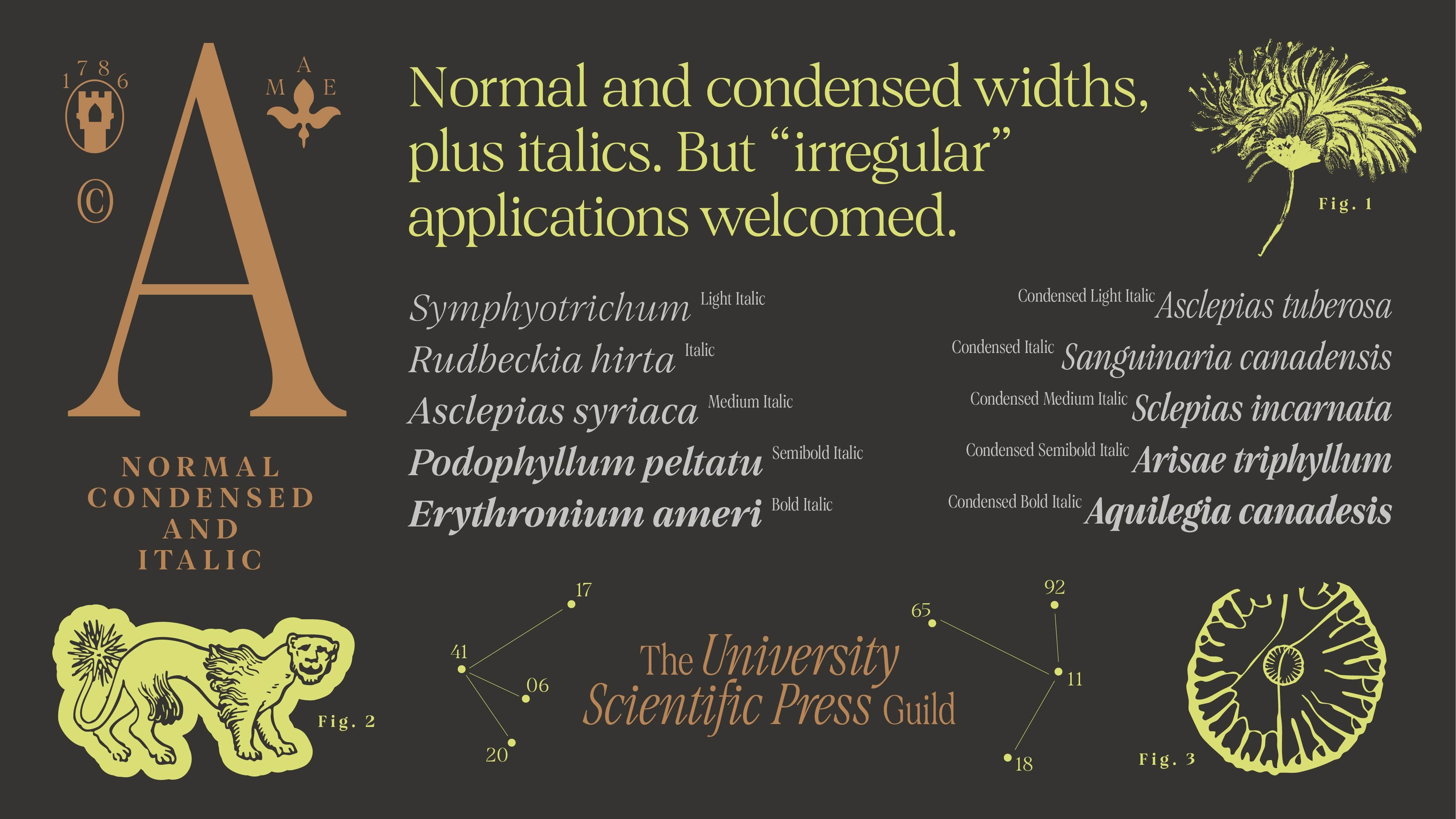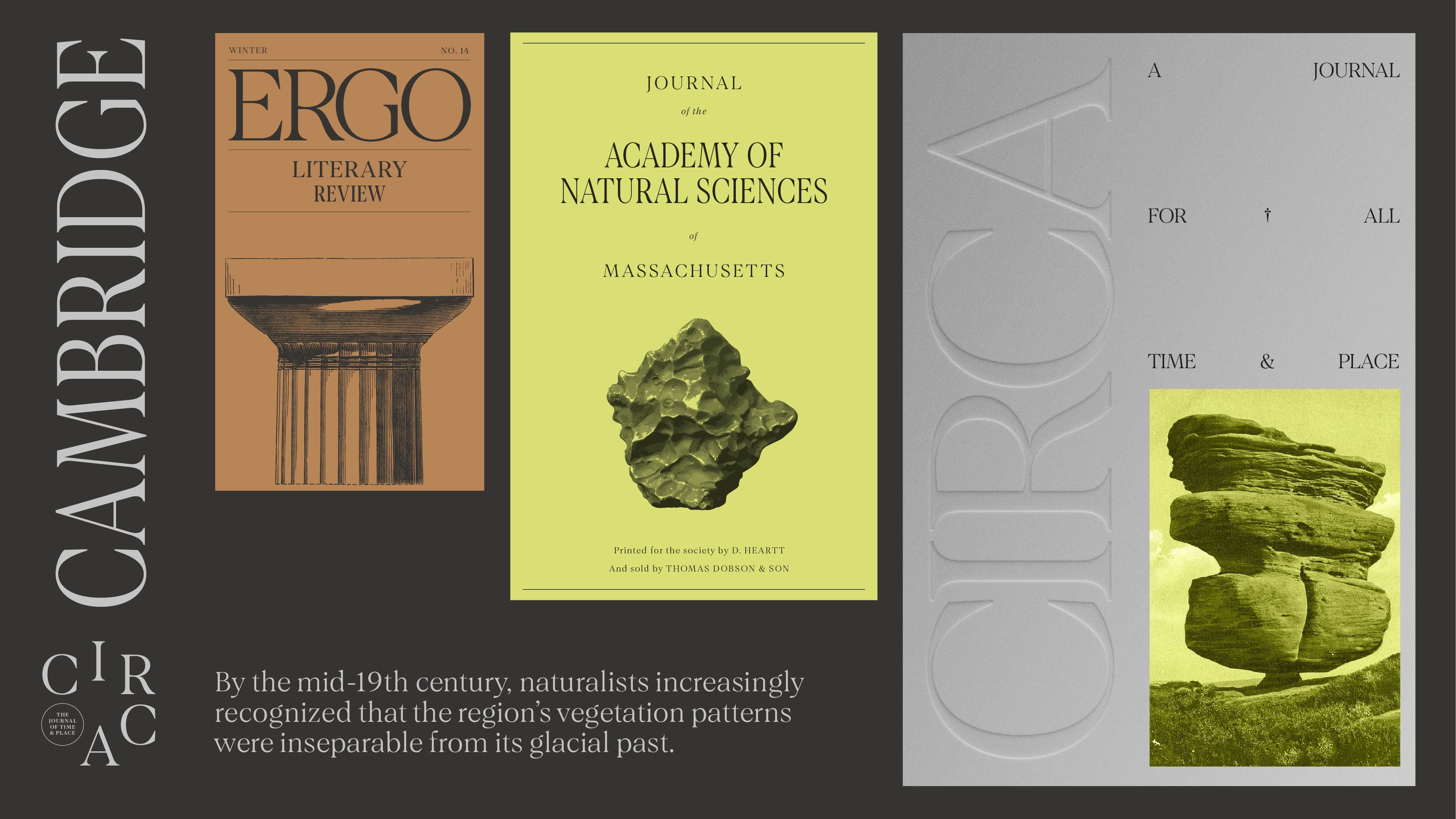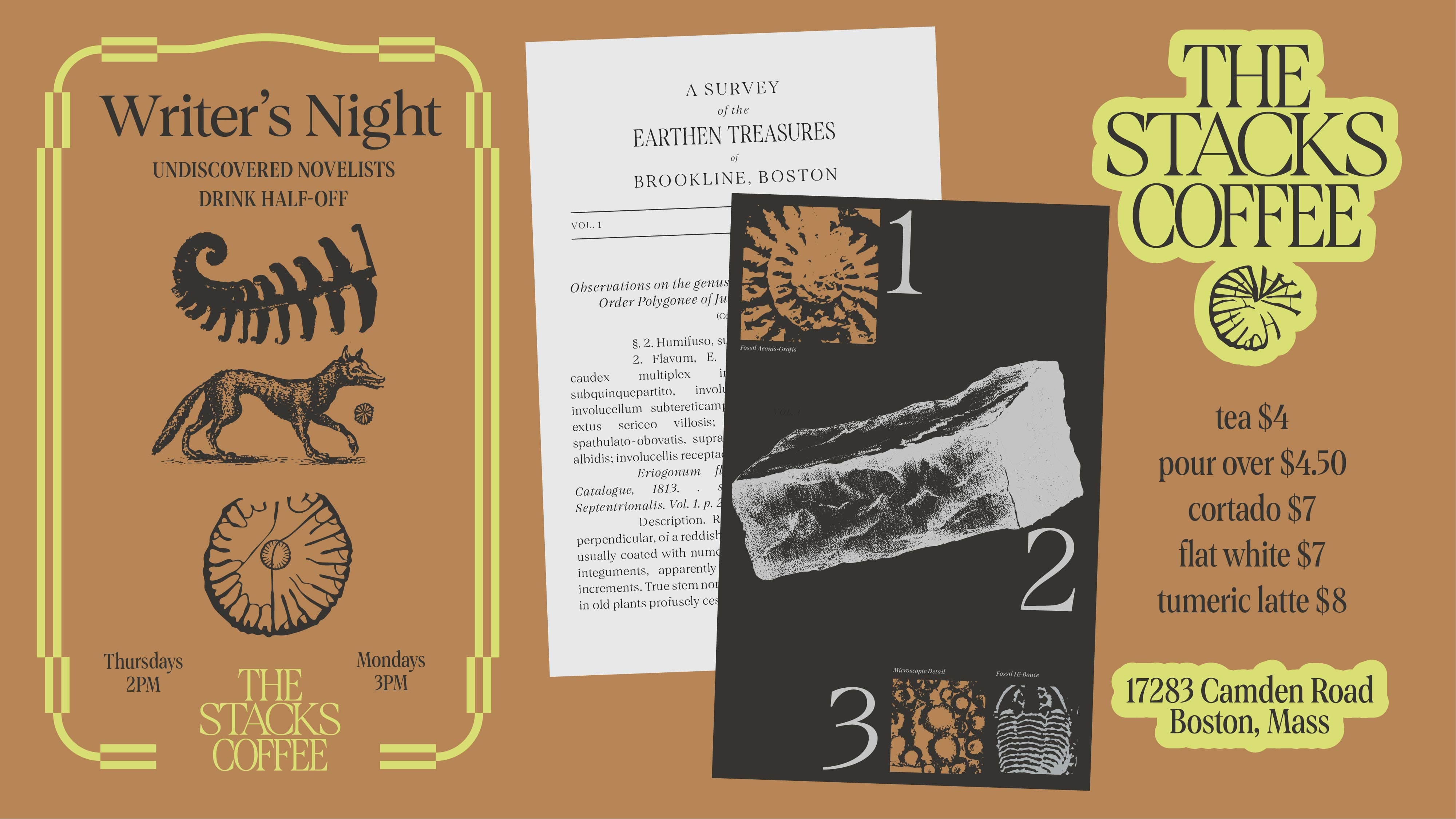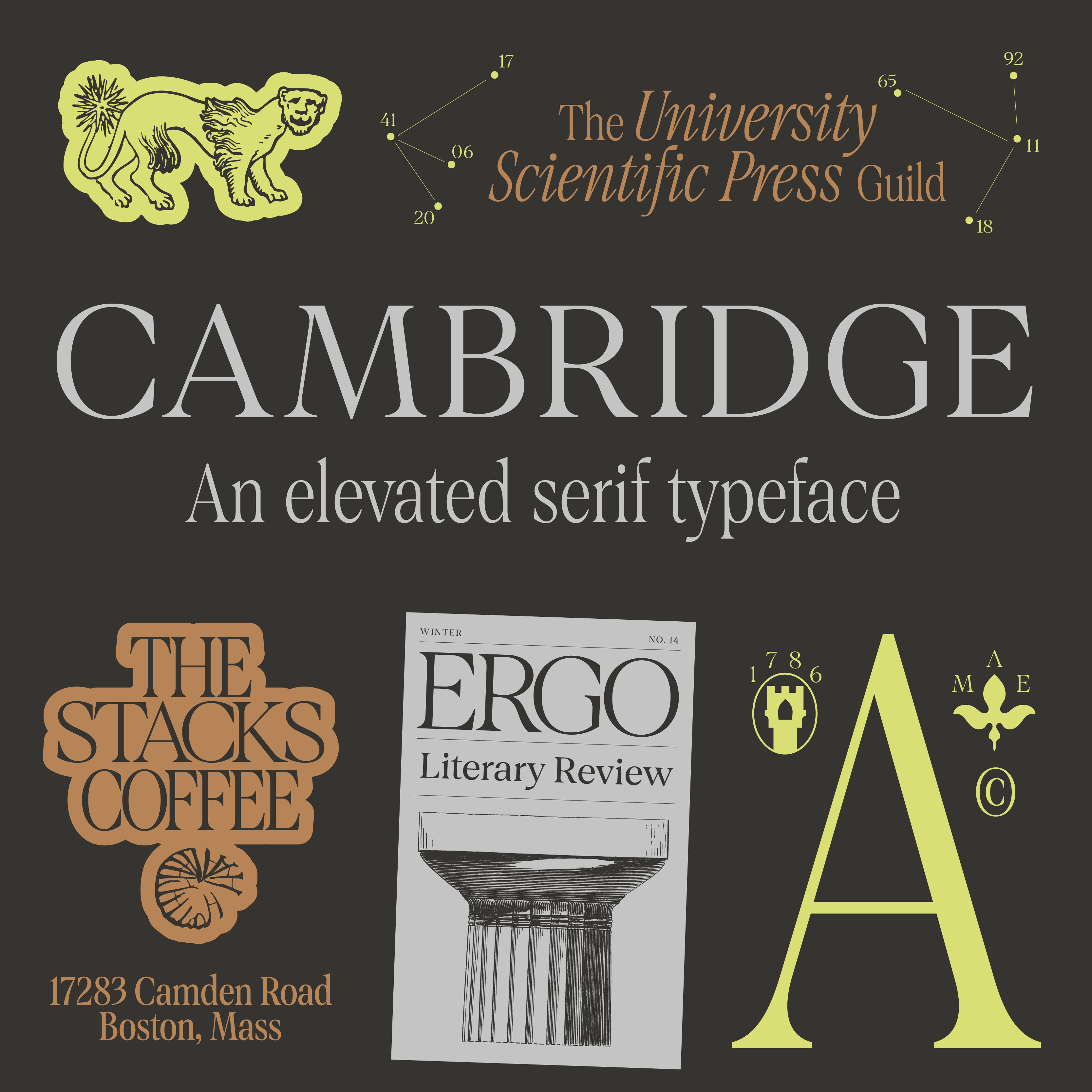
Cambridge Serif Typeface
An elevated, timeless serif typeface inspired by the history and academic vibes around Boston and Cambridge, Massachusetts. The family is versatile, with a condensed and regular width, plus italics in both.
A font with history and academic vibes inspired by Cambridge, Mass.
The Cambridge font family from Hoodzpah comes in 2 widths—regular and condensed—5 weights, and italics. The serif font comes with 395 glyphs supporting most Latin-based languages.
The idea for this typeface was born after a lobster-roll filled (and butter dipped) trip to Boston and Cambridge, Massachusetts. Have you been there? Even if virtually through Fallout 4? It’s incredible. It’s this convergence of history, mouthy Pats fans, and insane roads where “lanes” mean nothing and often disappear.
Cambridge is an elevated, timeless serif typeface inspired by the history and academic vibes around Boston and Cambridge, Massachusetts. From the old engraved headstones of the cemeteries, to the bronze de-bossed plaques marking historical places and legacy institutions. The typeface features both a normal and condensed width, both with italics. This typeface is great for projects where you need to put on airs and make a confident yet controlled statement. This typeface family thinks it’s smart (sorry “smahht”). Did it mention it graduated magna cum laude from Harvard? Oh it did? Of course it did.
• Language Support: Western, Central, and most South Eastern European characters.
• Numerals, fractions, currency symbols, and punctuation.
• 395 Glyphs